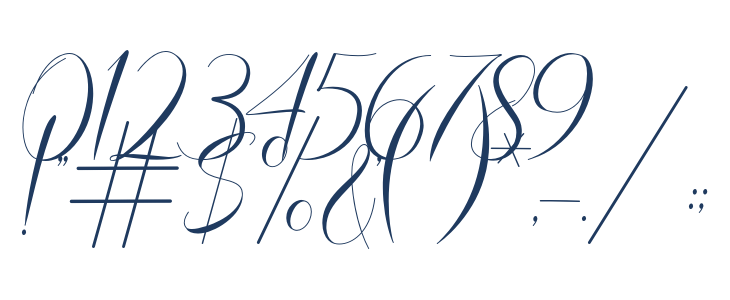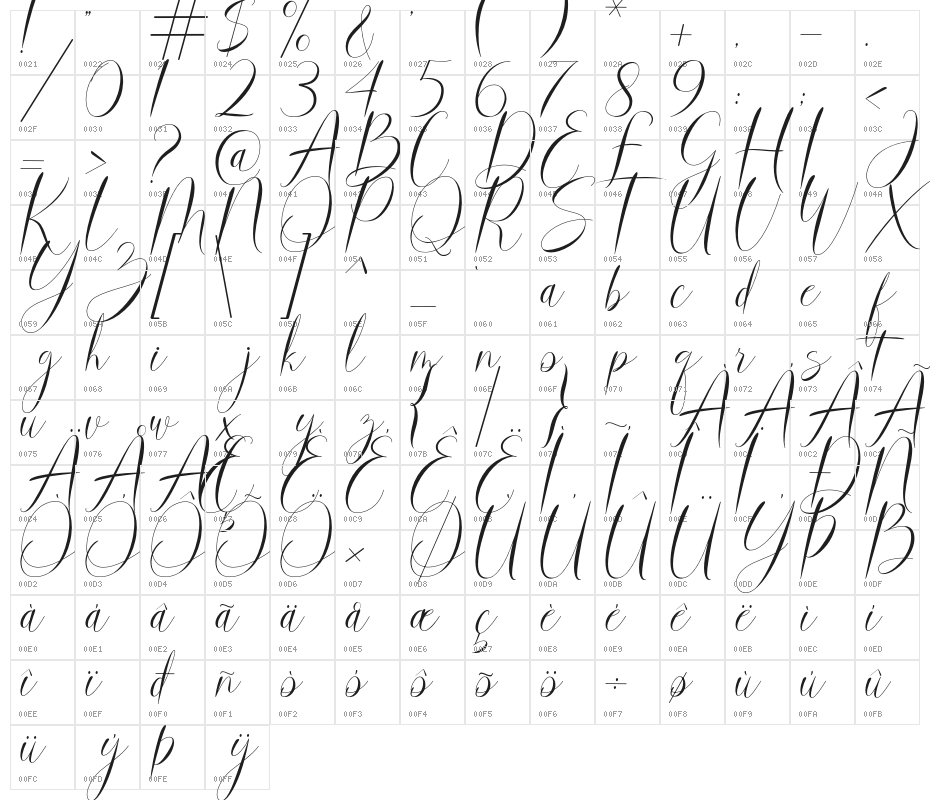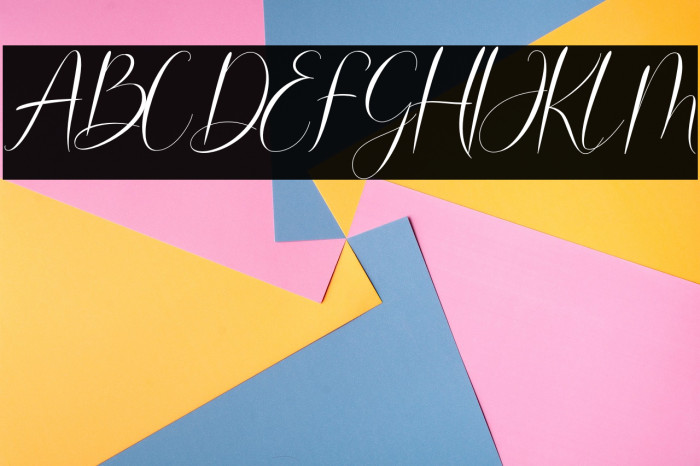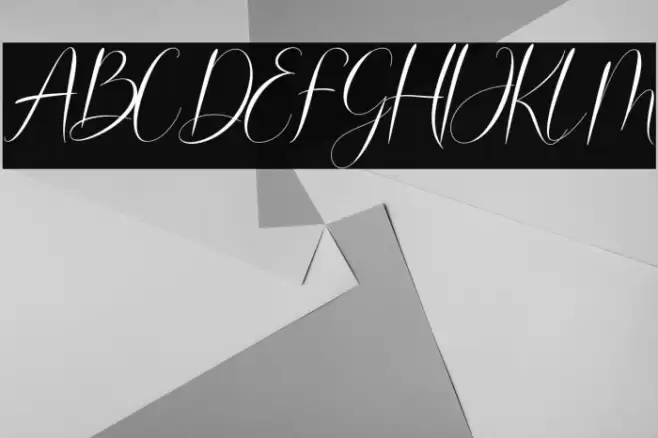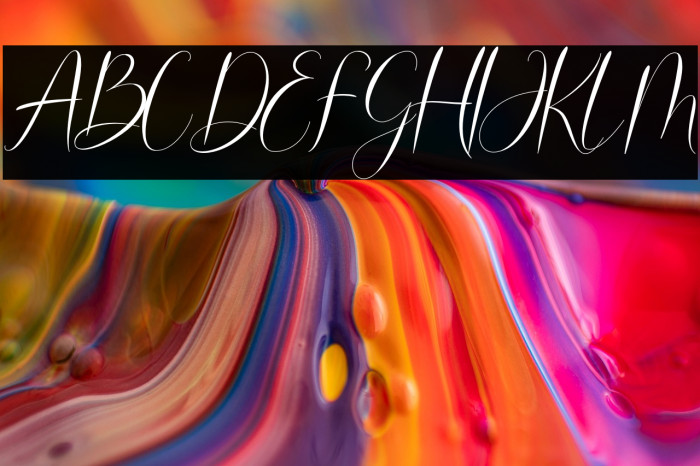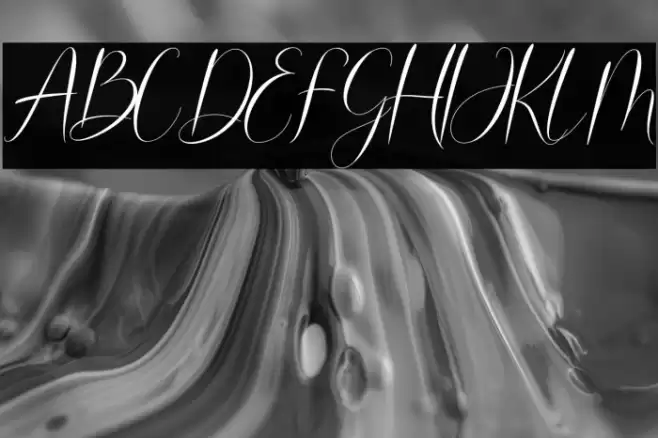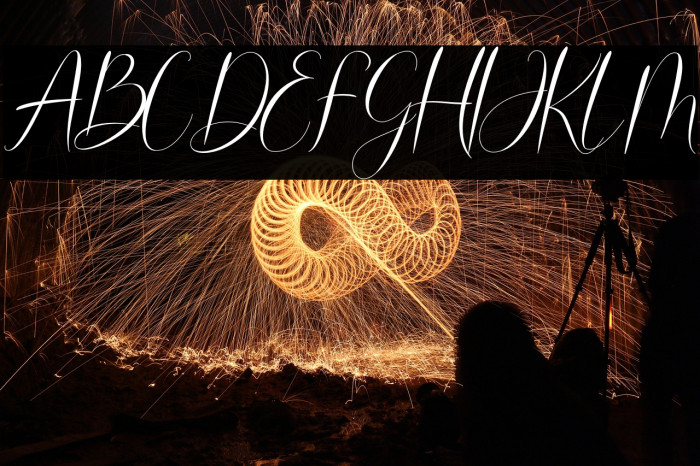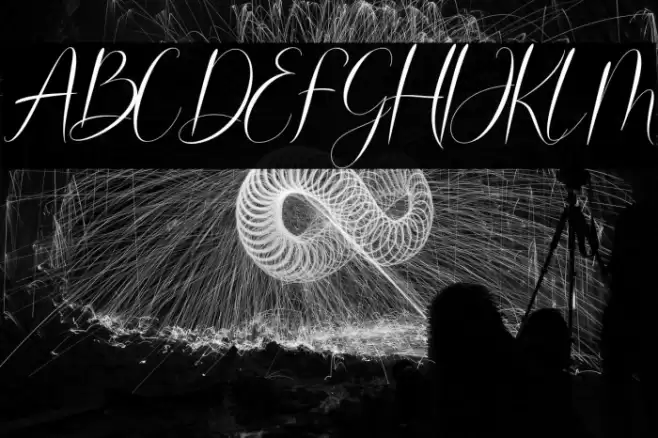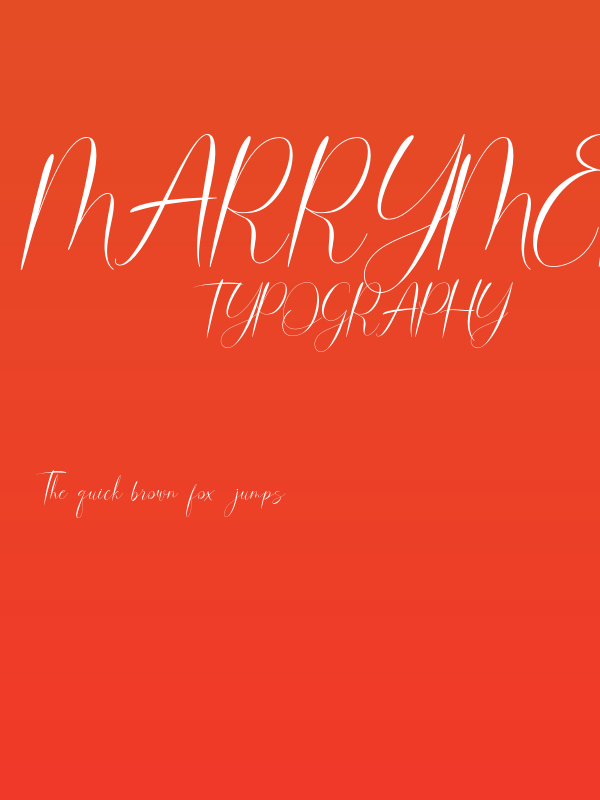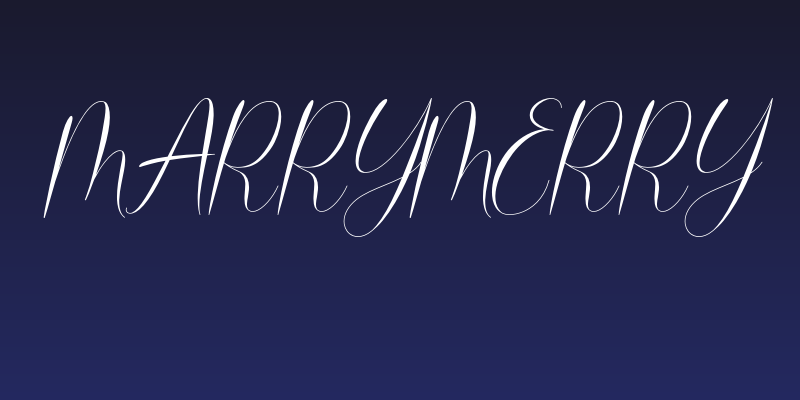
marrymerry Font
This elegant script font features a flowing, cursive style with high contrast between thick and thin strokes. The characters are gracefully elongated, with sweeping ascenders and descenders that add a sense of movement and sophistication. The uppercase letters are particularly ornate, while the lowercase letters maintain a consistent fluidity. The numerals and special characters are designed to complement the overall aesthetic, making it suitable for formal and decorative purposes. The font's delicate curves and stylish flair make it ideal for projects that require a touch of elegance and class.